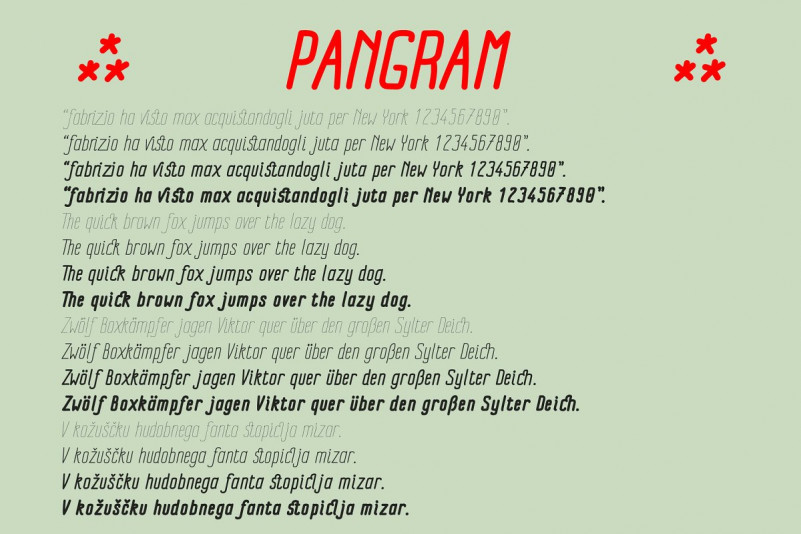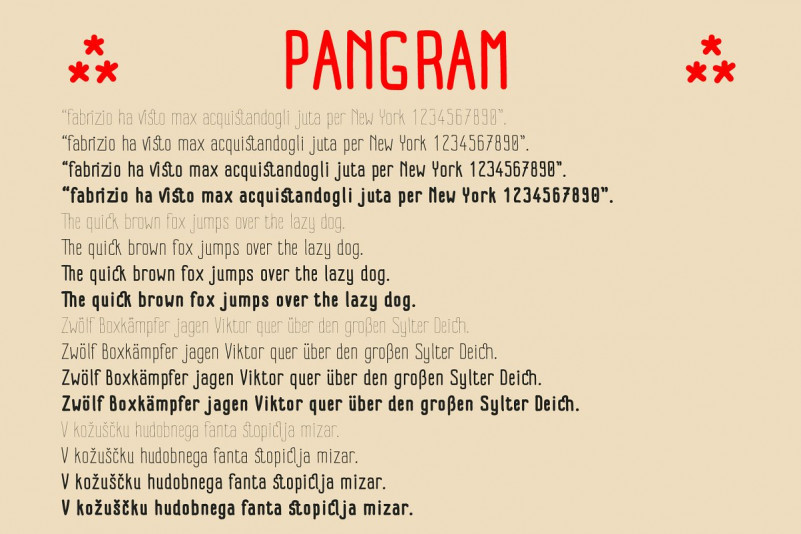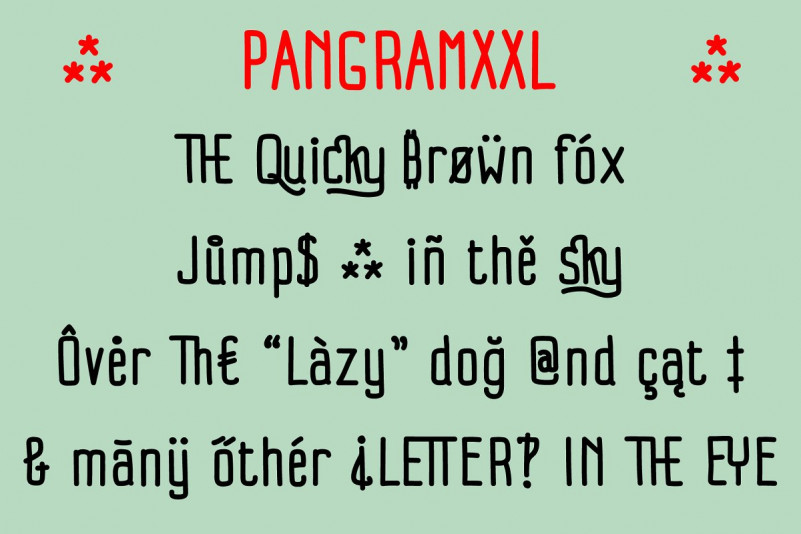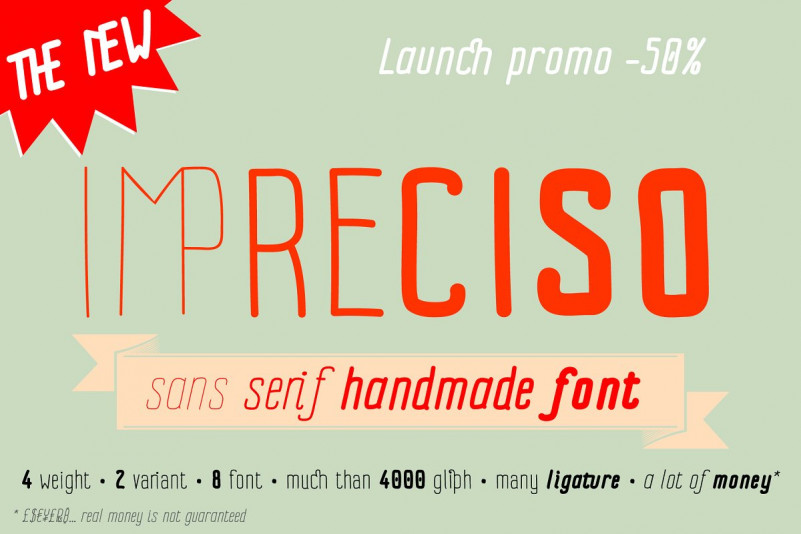
Impreciso Handmade Font Family
Continues to be a sans serif handmade font. This is a fresh & modern handwritten font. The overall feel of the font is elegant, sophisticated with a touch of informal and it is ideal if you want to convey a sense of class and style. Introducing Impreciso Font. Impreciso is a brand new sans serif family font, completely handwritten. Each one contain up to 500 total gliph, up to 110 extra ligature (opentype feature DLIG), kerning table. Impreciso family is incredibly useful on most of creative field like magazine, logo, poster, book, composition and it’s a great ingredient to have in every kitchen!